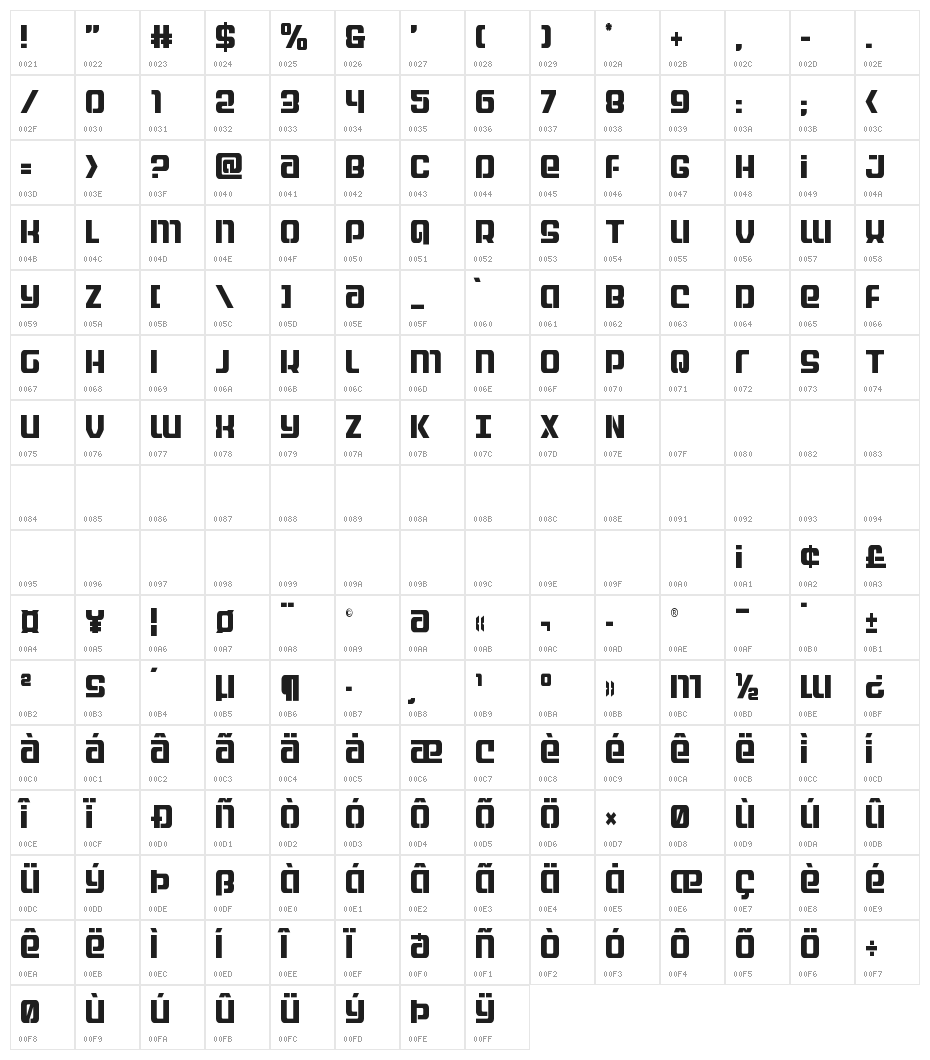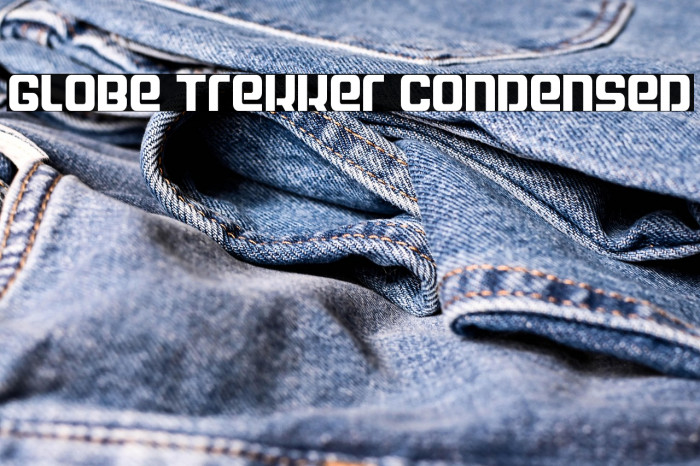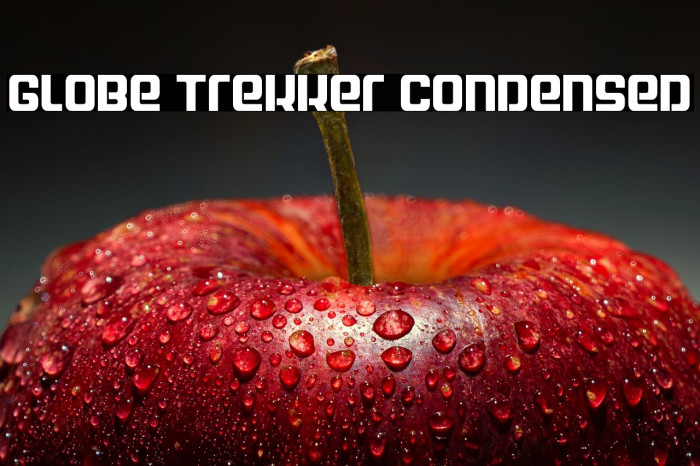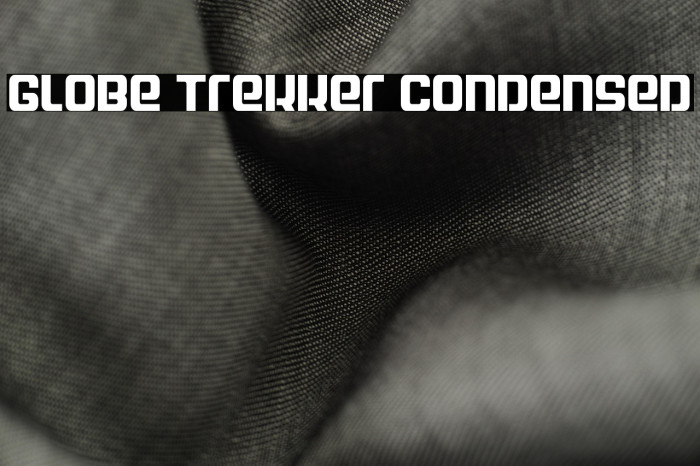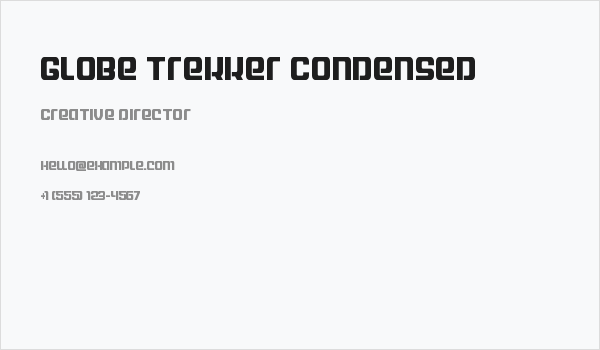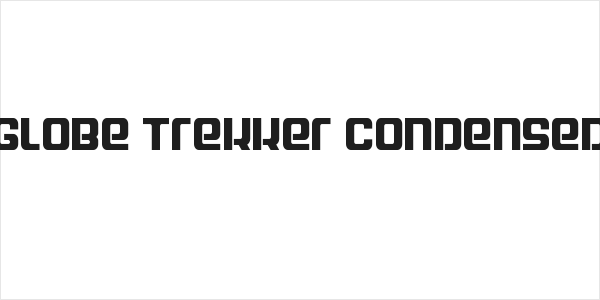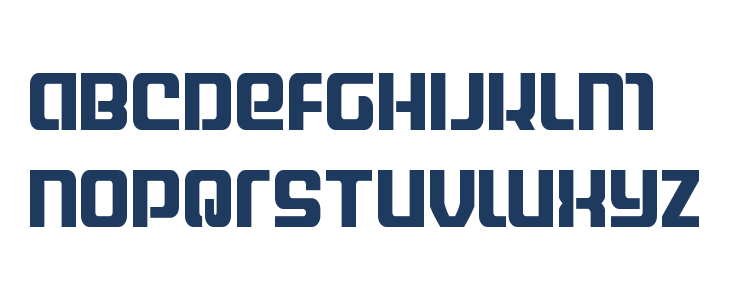
Globe Trekker Condensed Font
Globe Trekker Condensed Description
This font features a bold, geometric style with a condensed width, giving it a modern and futuristic appearance. The characters are constructed with thick, uniform strokes, creating a strong visual impact. The angular design of the letters adds a sense of dynamism and movement, making it suitable for attention-grabbing headlines or branding. The uppercase and lowercase letters maintain a consistent height, enhancing readability while maintaining a unique aesthetic. The numerals and special characters are designed to match the overall style, ensuring a cohesive look across all text elements.
Proposed ProjectsIdeal for use in technology branding, sports team logos, futuristic posters, and video game titles.